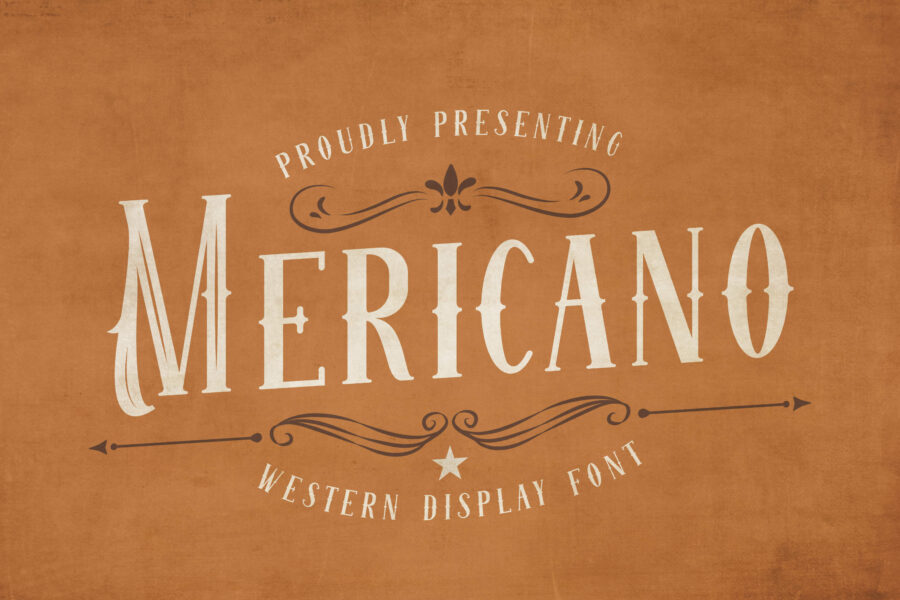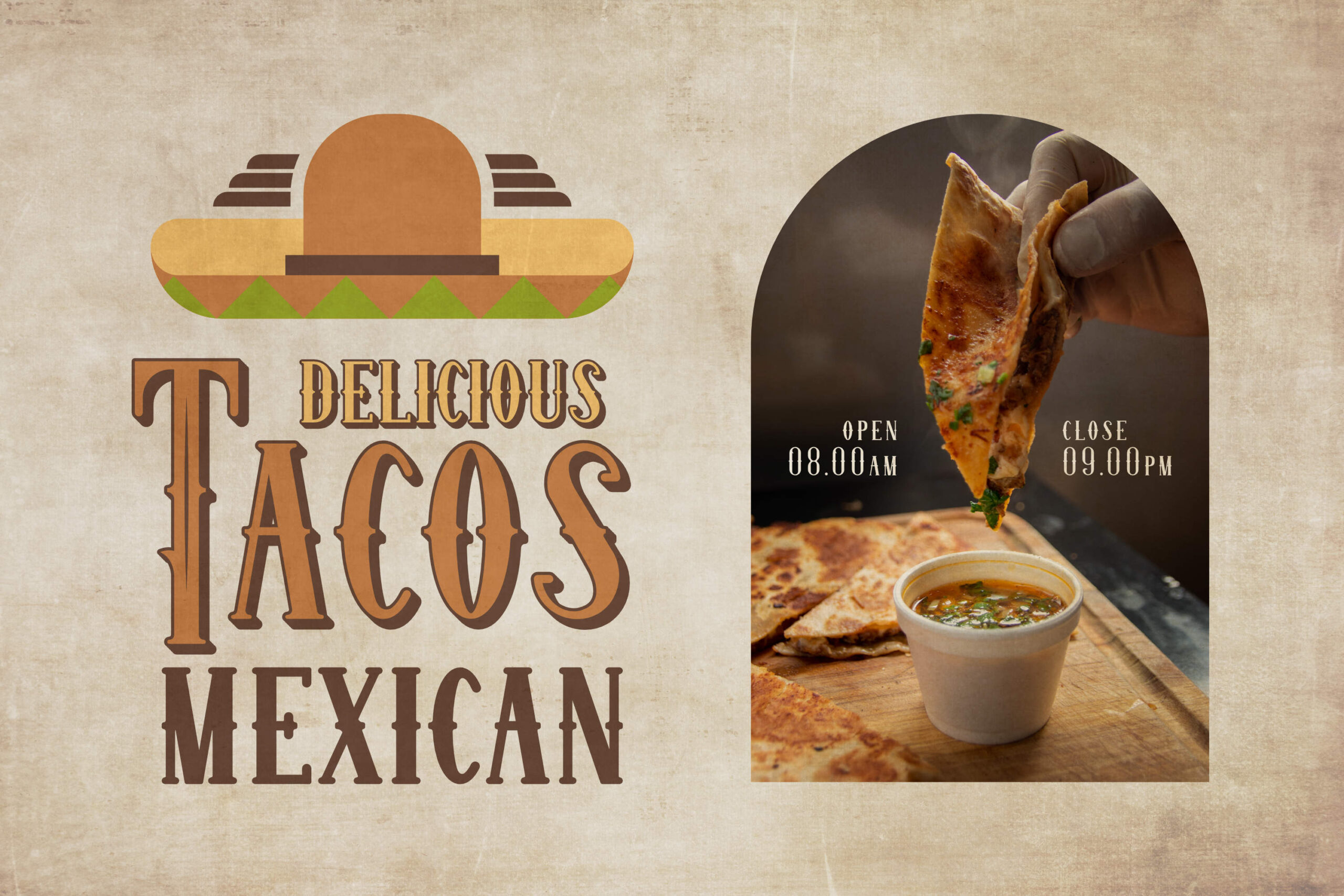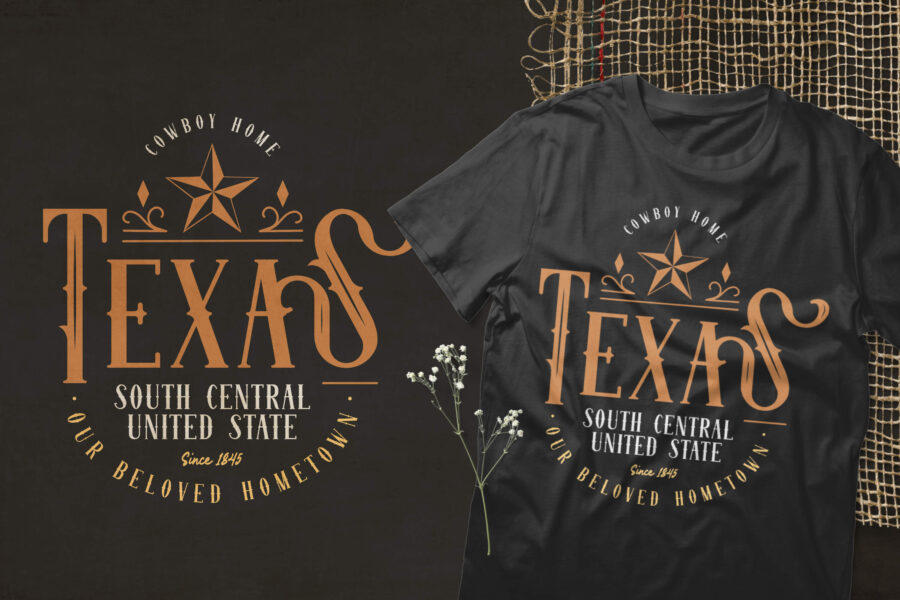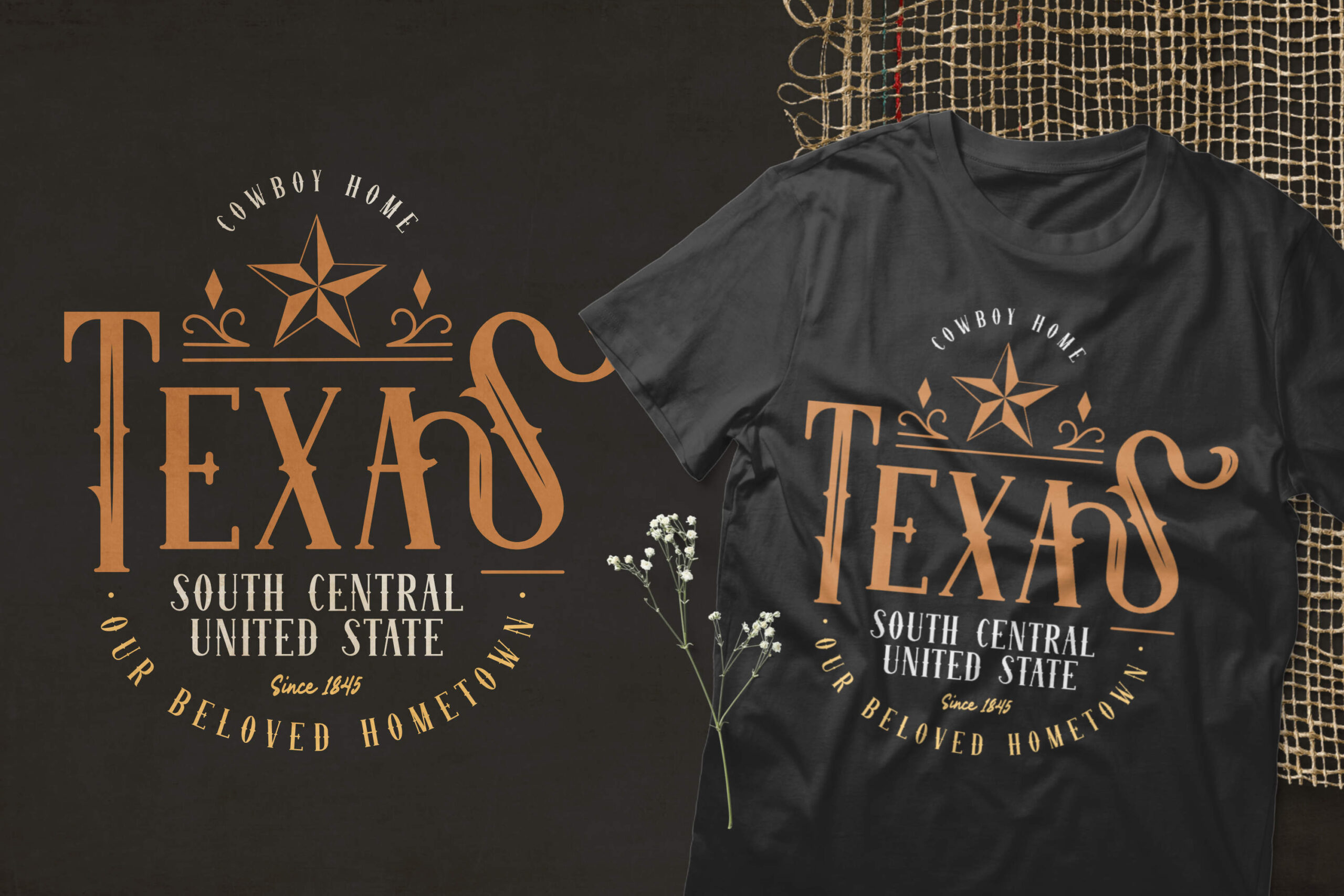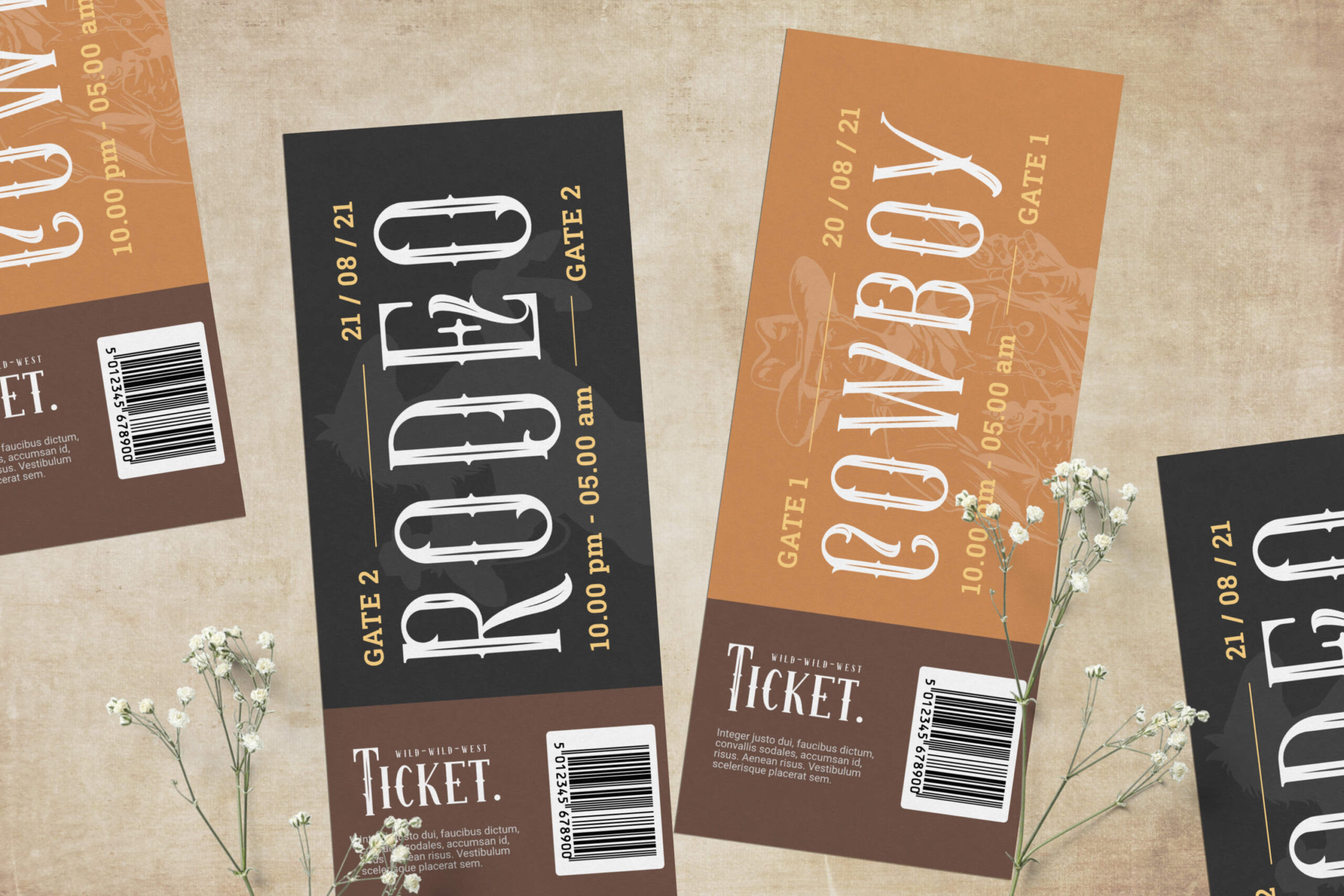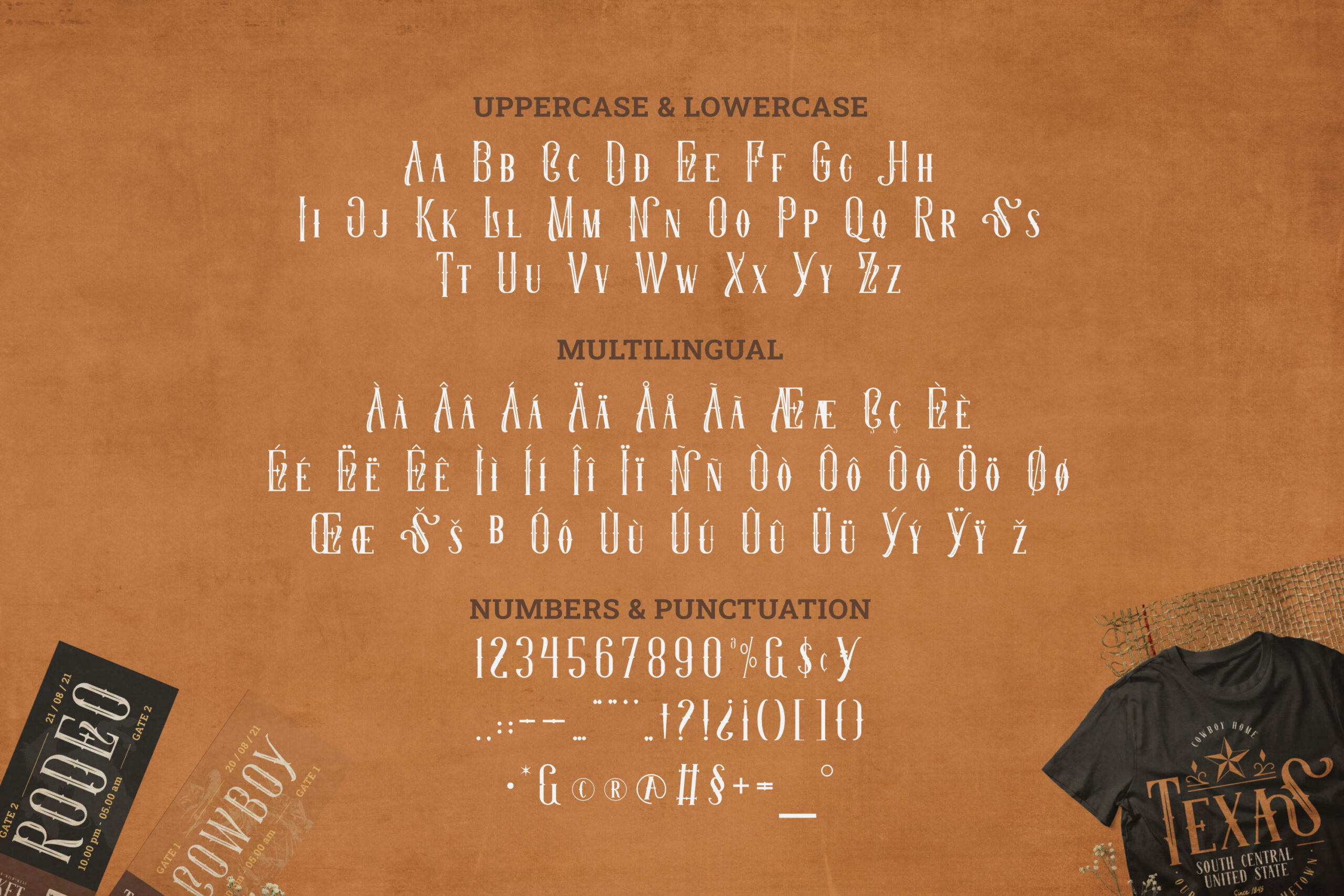
Mericano is a stylish western display font that evokes the rugged charm and bold spirit of the American frontier. With tall letterforms, flared serifs, and ornamental accents, it brings a classic cowboy aesthetic to your designs. Its vintage yet elegant construction makes it ideal for posters, signage, restaurant menus, or any design that needs a touch of wild west authenticity.
The font includes uppercase, lowercase, multilingual support, and a complete set of numbers and punctuation, ensuring full functionality across various applications. Whether you’re designing for a Tex-Mex restaurant, rodeo event, or rustic branding project, Mericano adds a strong dose of character and western flair.
Mericano